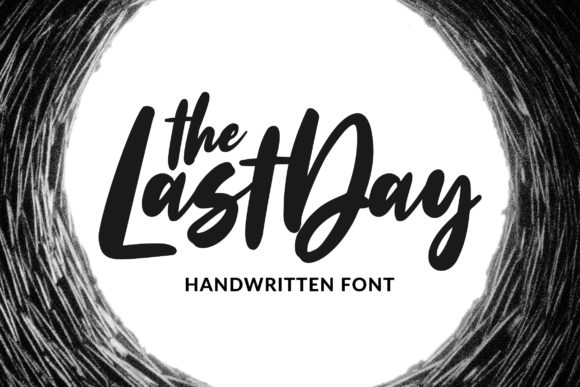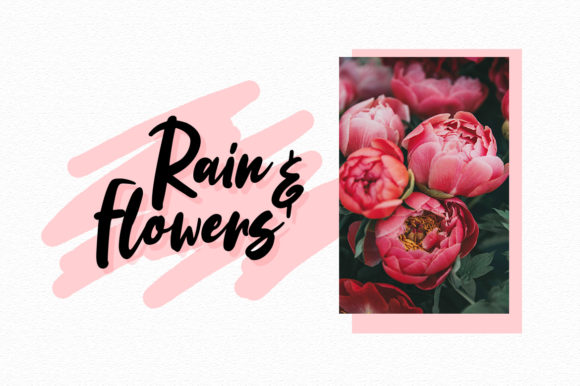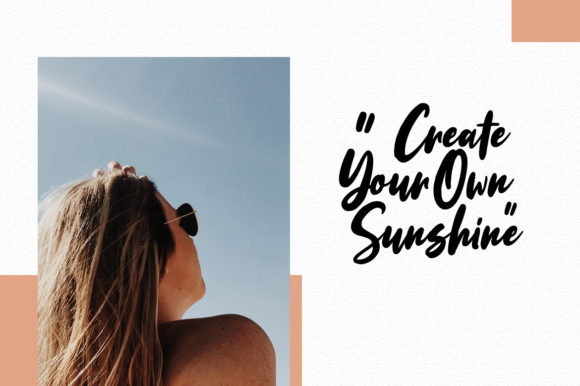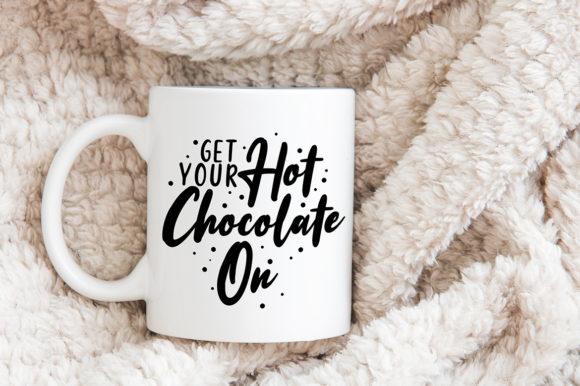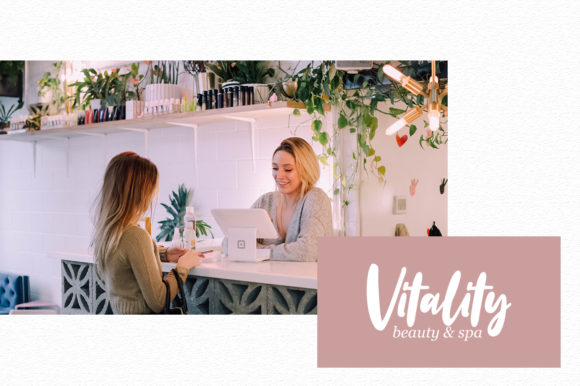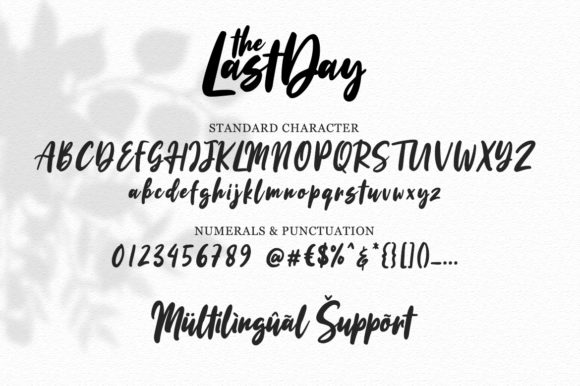
The Last Day Font
About The Last Day Font
The Last Day is a fun and playful handwritten font with amazing swashes. It will turn any design project into a stand out!